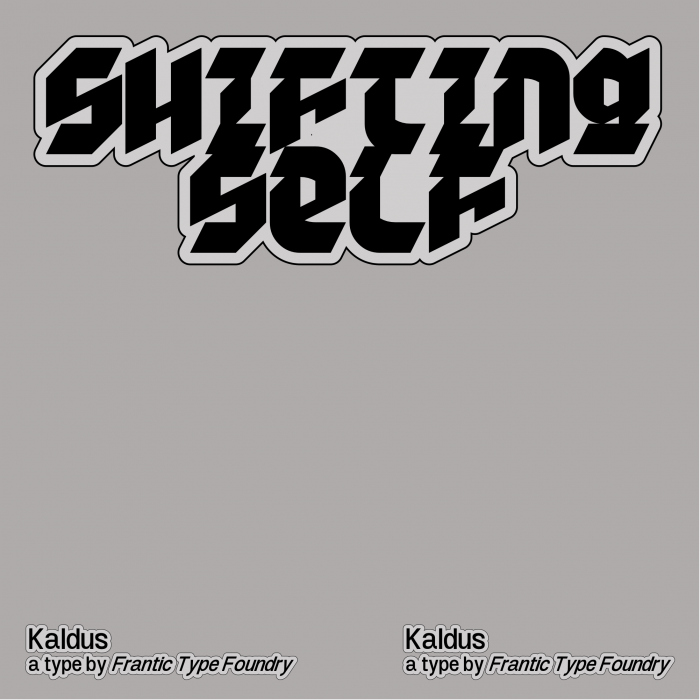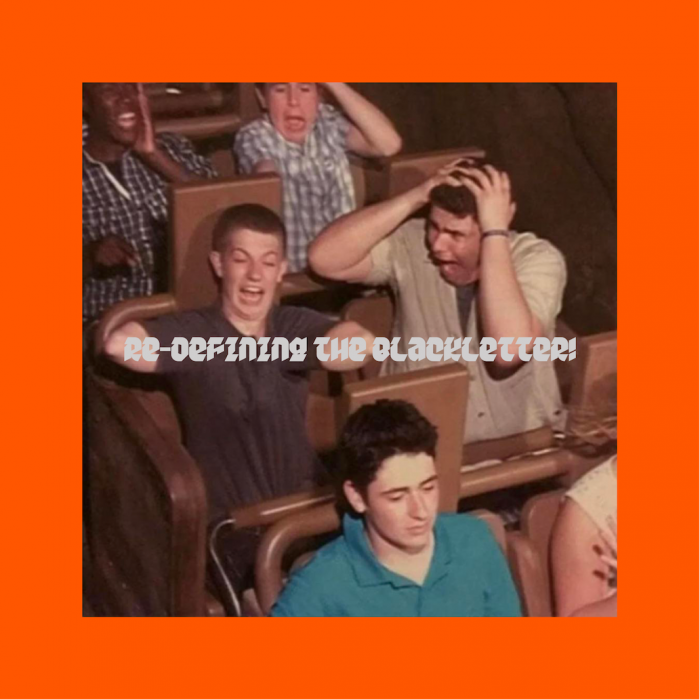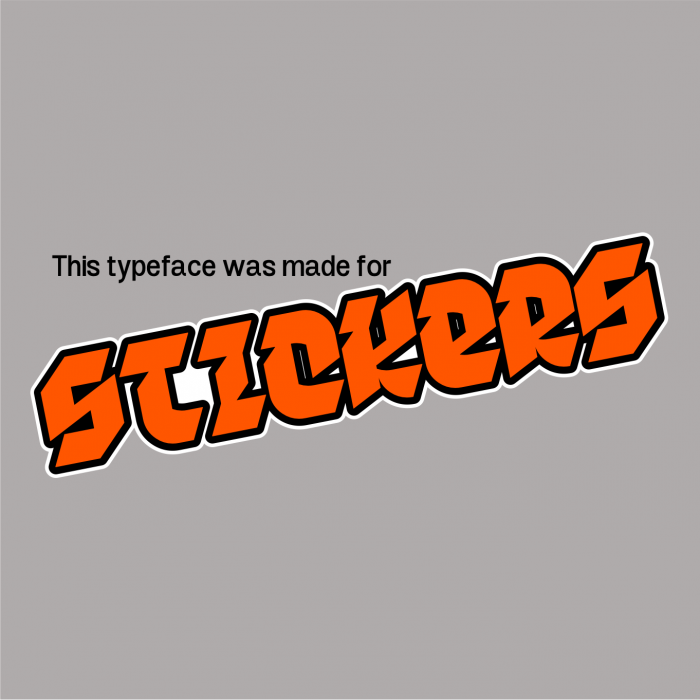
Kaldus
by frongile
actually blackletter (somehow)
inspired by the work of @elmoyenique and @sed4tives
btw "kaldus" is slanted in estonian
I like the vigorous temperament in this one, it's like right-in-the-face!
The @ is a different horse :)
It's very weighty. Could do very well as a poster for a rock/metal concert, I feel. Nice job!
A chunky and playful unicase blackletter.